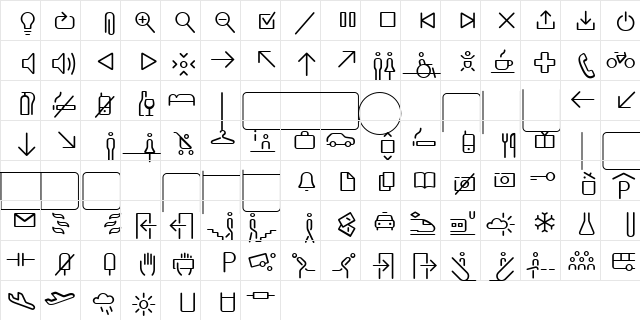
NettoIcons Regular
| Foundry | Daniel Utz published by FSI FontShop International GmbH |
Design Context for NettoIcons Typeface
NettoIcons takes a measured approach to typography — its balanced proportions and neutral character make it a reliable workhorse for both digital and print work.
Pro Tip: Use NettoIcons in both headline and body roles to test its range before committing to a single application.